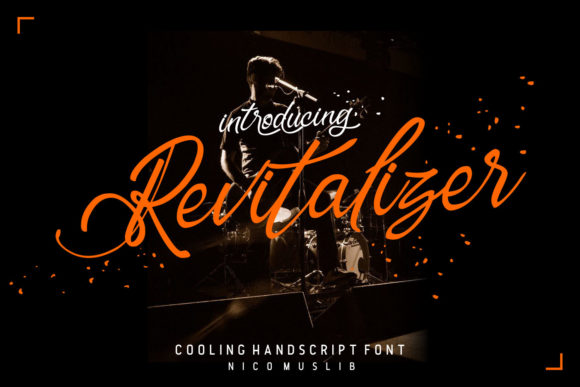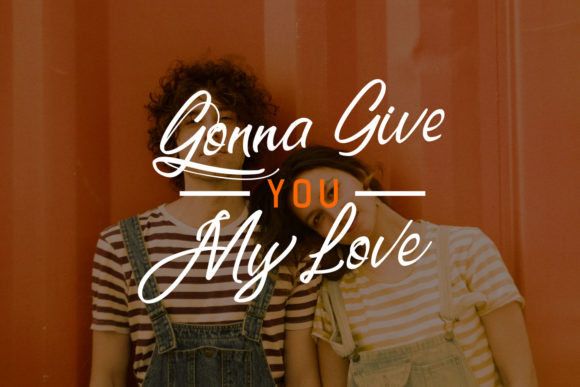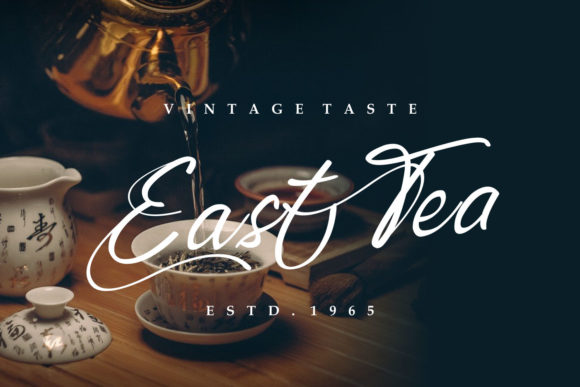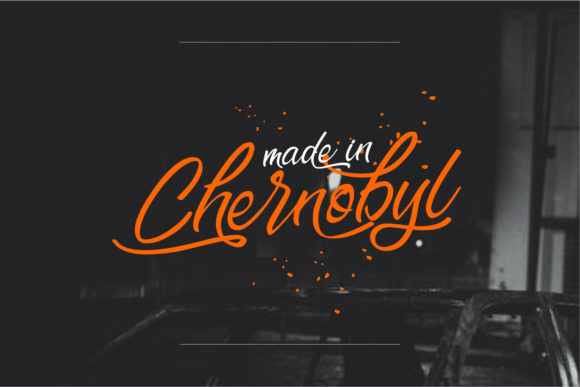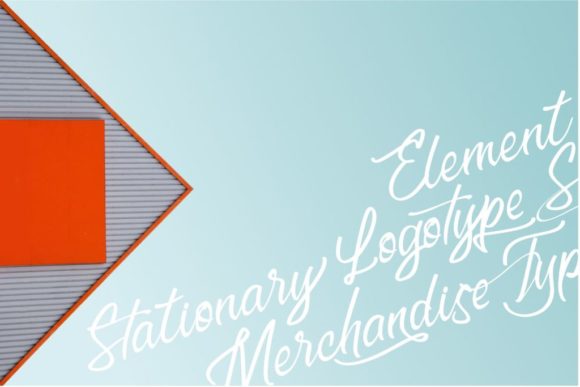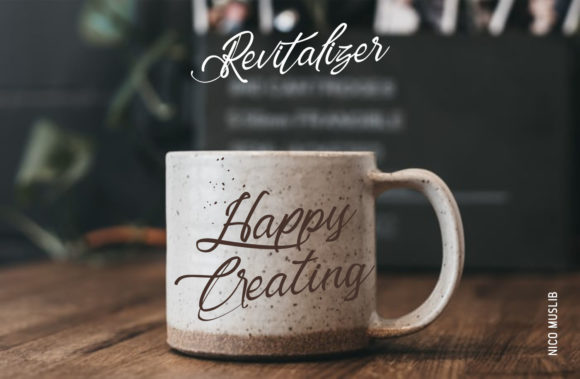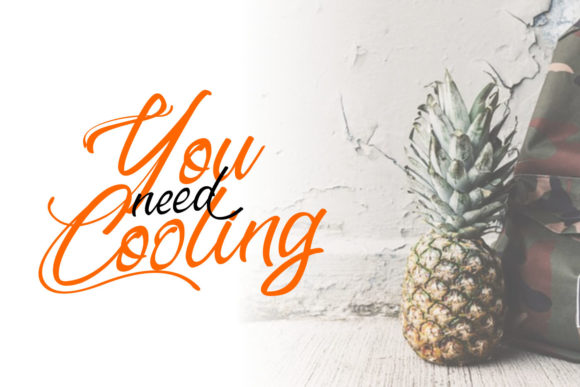
Revitalizer Font
About Revitalizer Font
Revitalizer is a beautiful and cursive handwritten font. Unique and distinct, this font will look outstanding on a wide variety of designs. This font is PUA encoded which means you can access all of the glyphs and swashes with ease! It features a varying baseline, smooth lines, gorgeous glyphs and stunning alternates.